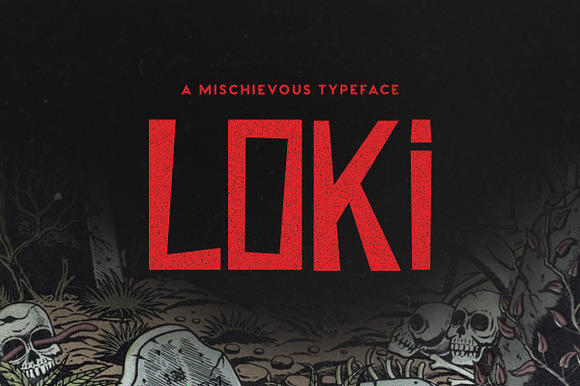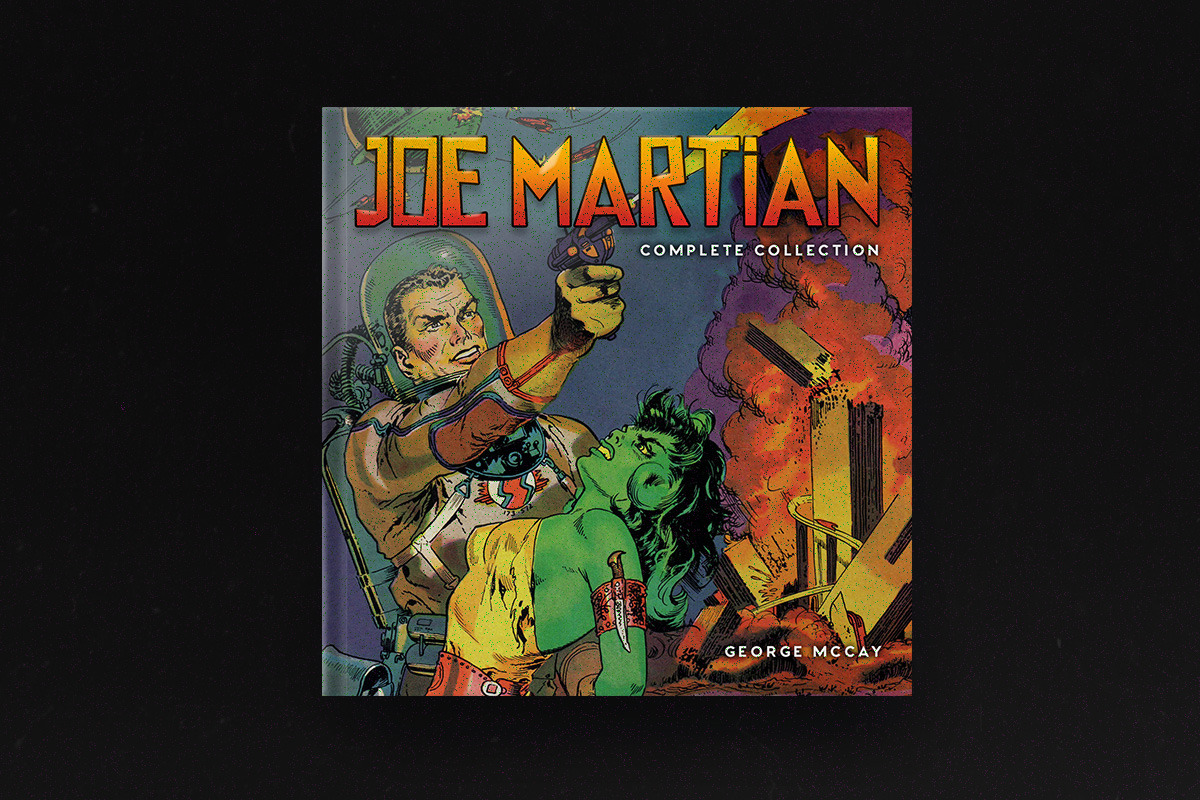
Loki Typeface
Loki is a display typeface without any curves. It's great for both darker, noir titles and for more lighthearted titles like comic books or games. All letters have alternate versions which can be toggled via Caps Lock. Some alternates are drastically different while others only have small alterations.
- The font includes uppercase multilingual letters, numbers and punctuation.
- All letters have alternate versions which can be toggled via Caps Lock.
- Some alternates are drastically different while others only have small alterations.